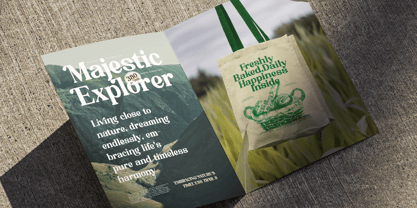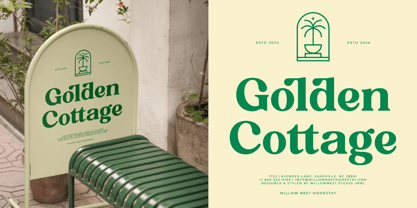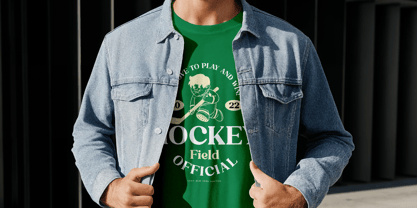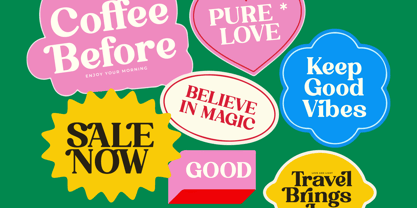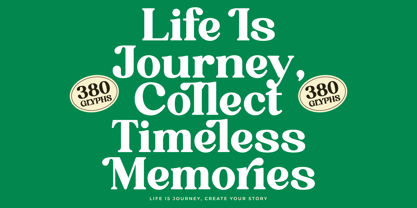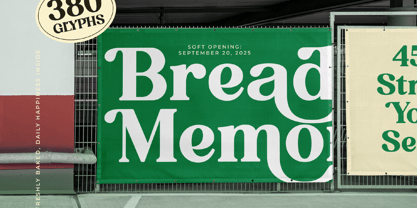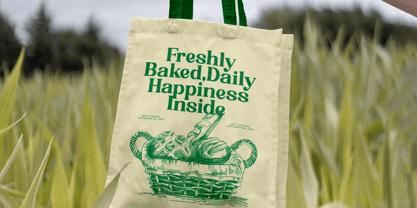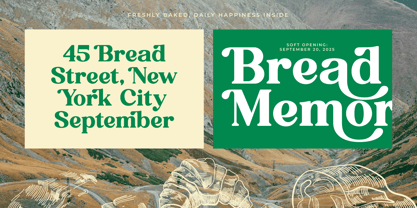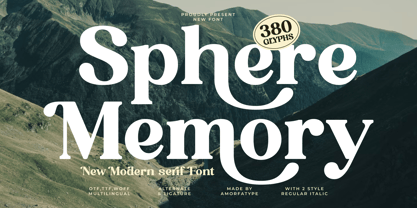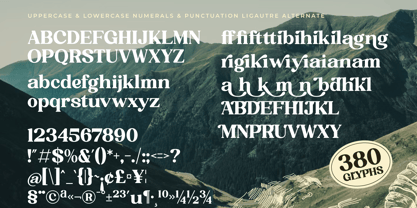
Sphere Memory
by Amorfa Type
The Sphere Memory Font Family was designed by Shiddiq Roihan and published by Amorfa Type. Sphere Memory contains 2 styles and family package options. More about this family
Sphere Memory is a bold and elegant modern serif font that blends timeless charm with fresh contemporary style. Featuring high contrast strokes, smooth curves, and distinctive letterforms, Sphere Memory adds a sophisticated yet creative touch to your typography.
Perfectly suited for branding, editorial layouts, fashion themes, packaging, and bold headlines, this font radiates confidence and character. Each glyph is thoughtfully designed to combine readability with artistic flair, making Sphere Memory a versatile typeface for both print and digital projects. Sphere Memory offers flexibility and variation to bring uniqueness and personality to your designs.
Designers: Shiddiq Roihan
Foundry: Amorfa Type